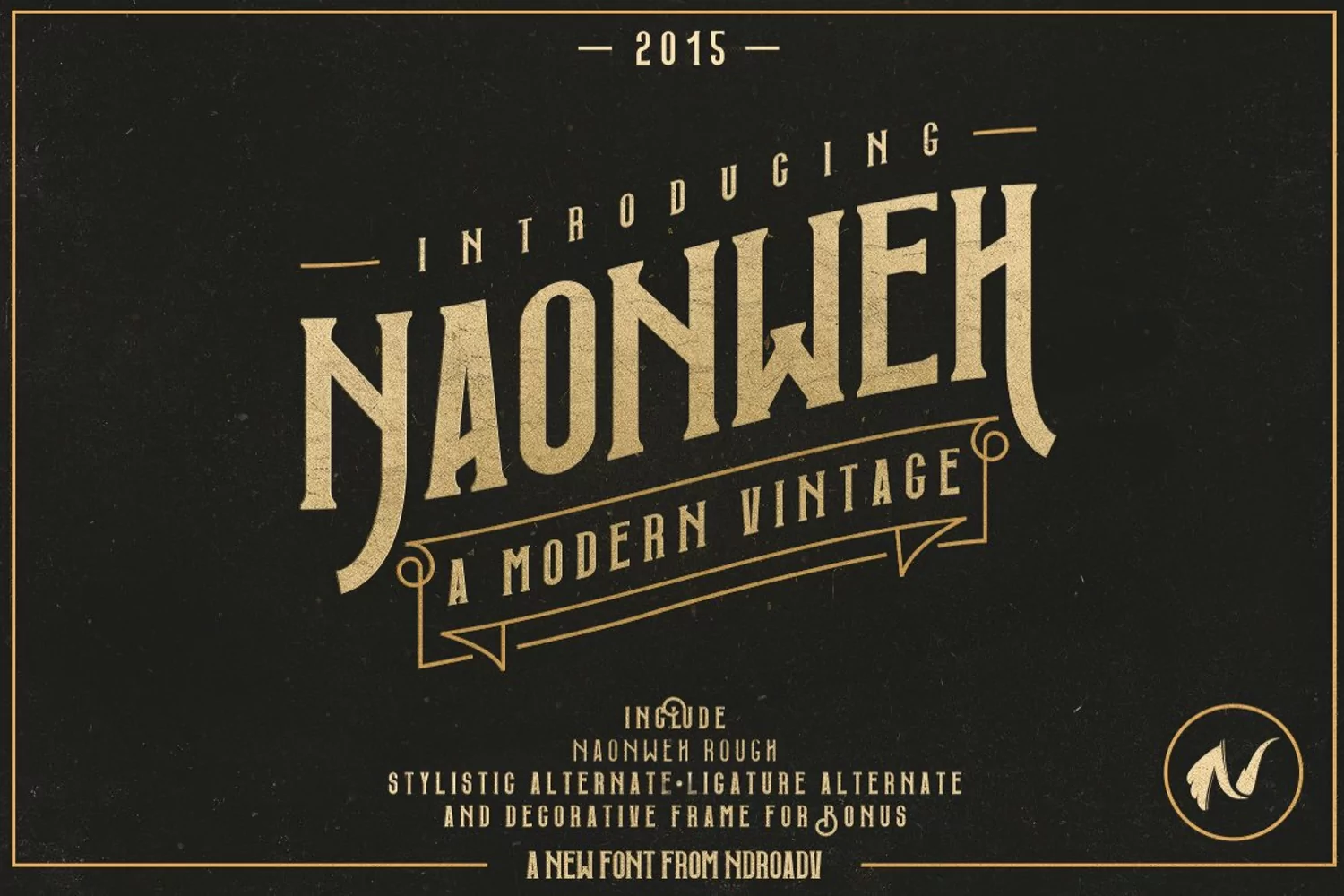
Naonweh Typeface is a vintage style font absolutely packed with extras and alternates + some super ornaments and frames. Also included is Naonweh Rough. Both files come in WOFF formats.